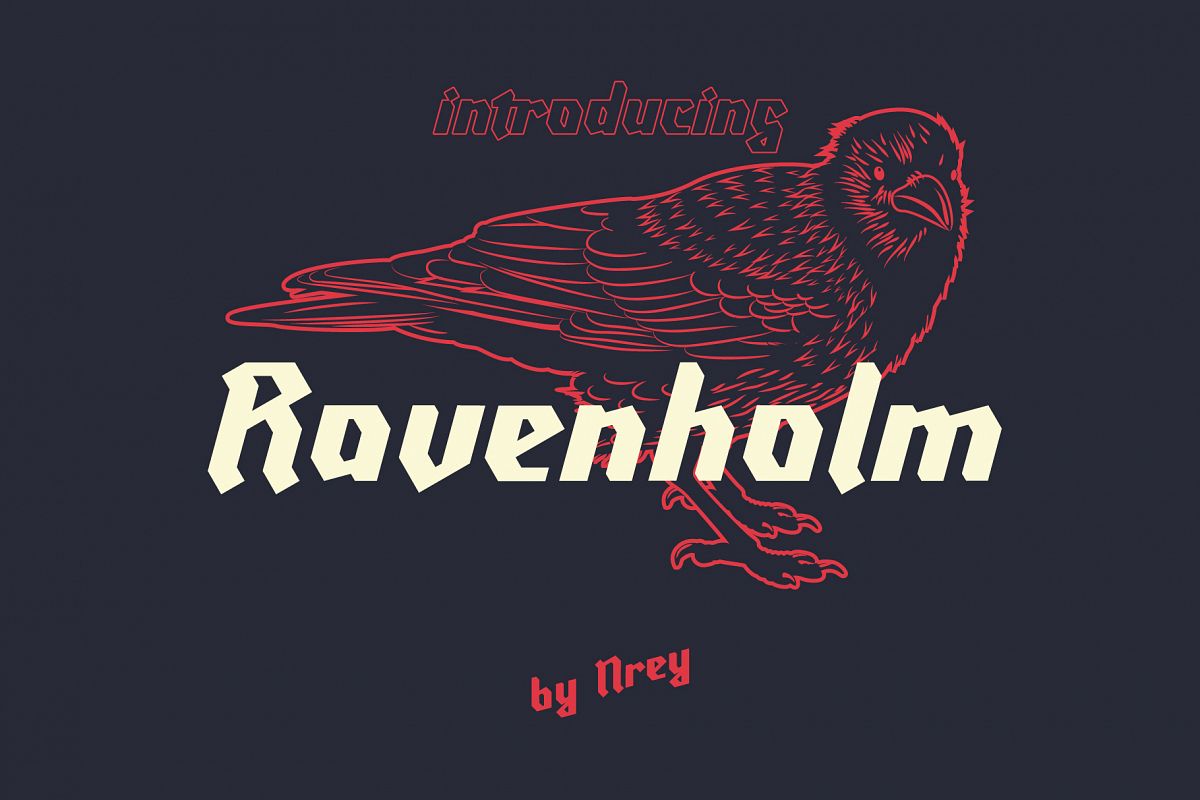
Ravenholm
Hello, Friends! Introducing new display font - Ravenholm.
His name inspired by Half Life game world.
It is a powerful typeface with fresh breath of gothic culture.
Font looks amazing as alone words and as full text blocks.
It has multilingual support include cyrillic, numerals and punctuations.